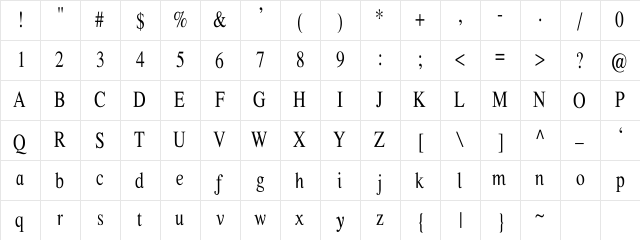
TymeThin Regular
Design Context for TymeThin
TymeThin is a composed and adaptable typeface that performs quietly and consistently across a wide range of design contexts. Its slender proportions lend an understated elegance to any composition.